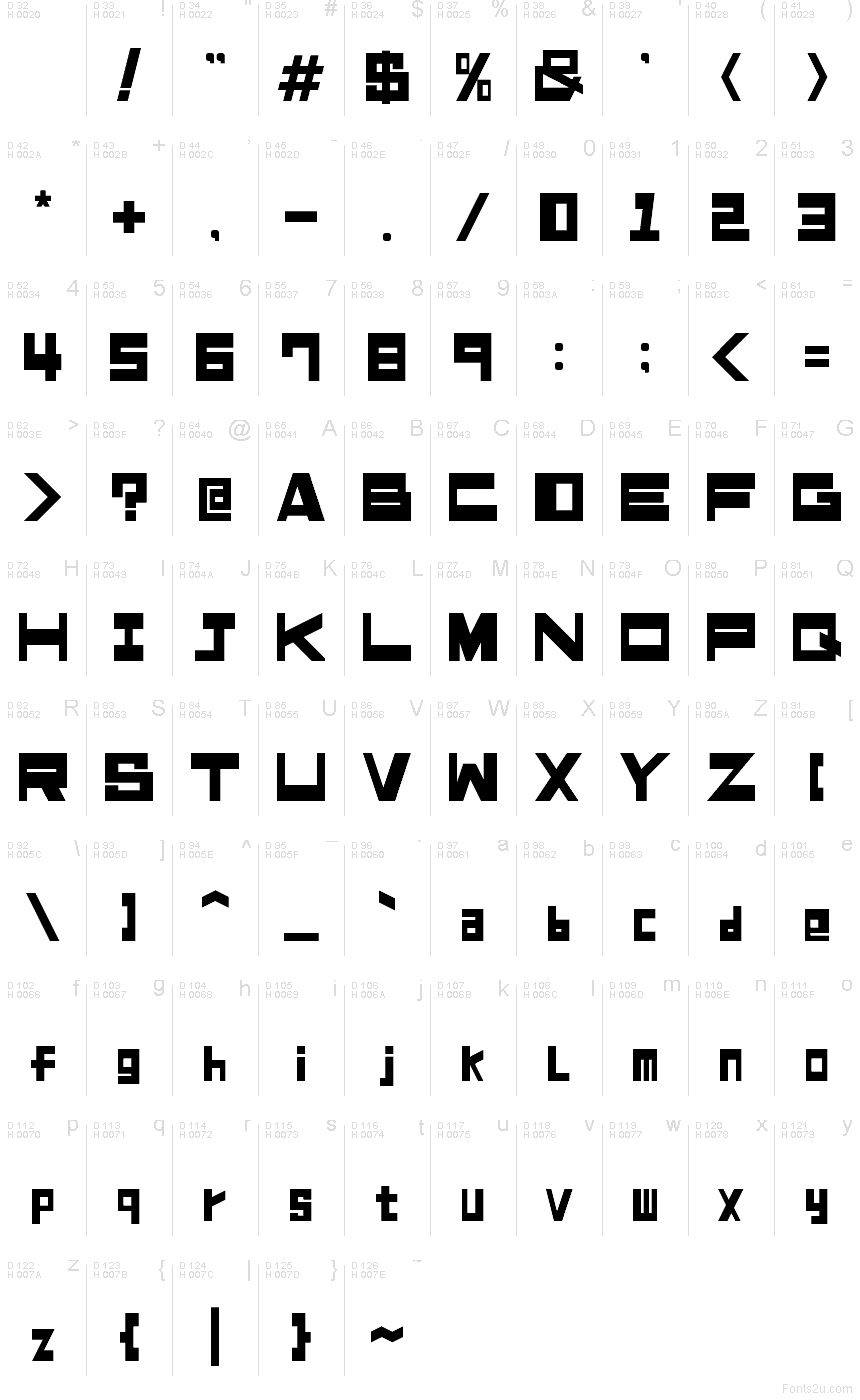
WarioWare Blocky Regular
WarioWare Blocky font by Kitty42777 is a free techno display typeface that punches straight out of a pixelated arcade screen. Squared-off shapes, chunky stems, and tight spacing give every word a compressed, high-energy feel, while the stepped diagonals add a cheeky, almost glitchy motion. Sitting in the WarioWare family, it carries that chaotic, game-night buzz—loud, playful, and unmistakably digital.
Using WarioWare Blocky, you can lock in titles for gaming thumbnails, retro app logos, stream overlays, posters, event flyers, and bold YouTube intros that need to shout from the screen. This free font shines at large sizes where its blocky geometry can really pop, and it pairs well with a clean geometric sans for body text to keep the overall layout readable and balanced.
Designer description: Warioware Blocky. Imperfect replication of the ingame font for Warioware: Smooth Moves.